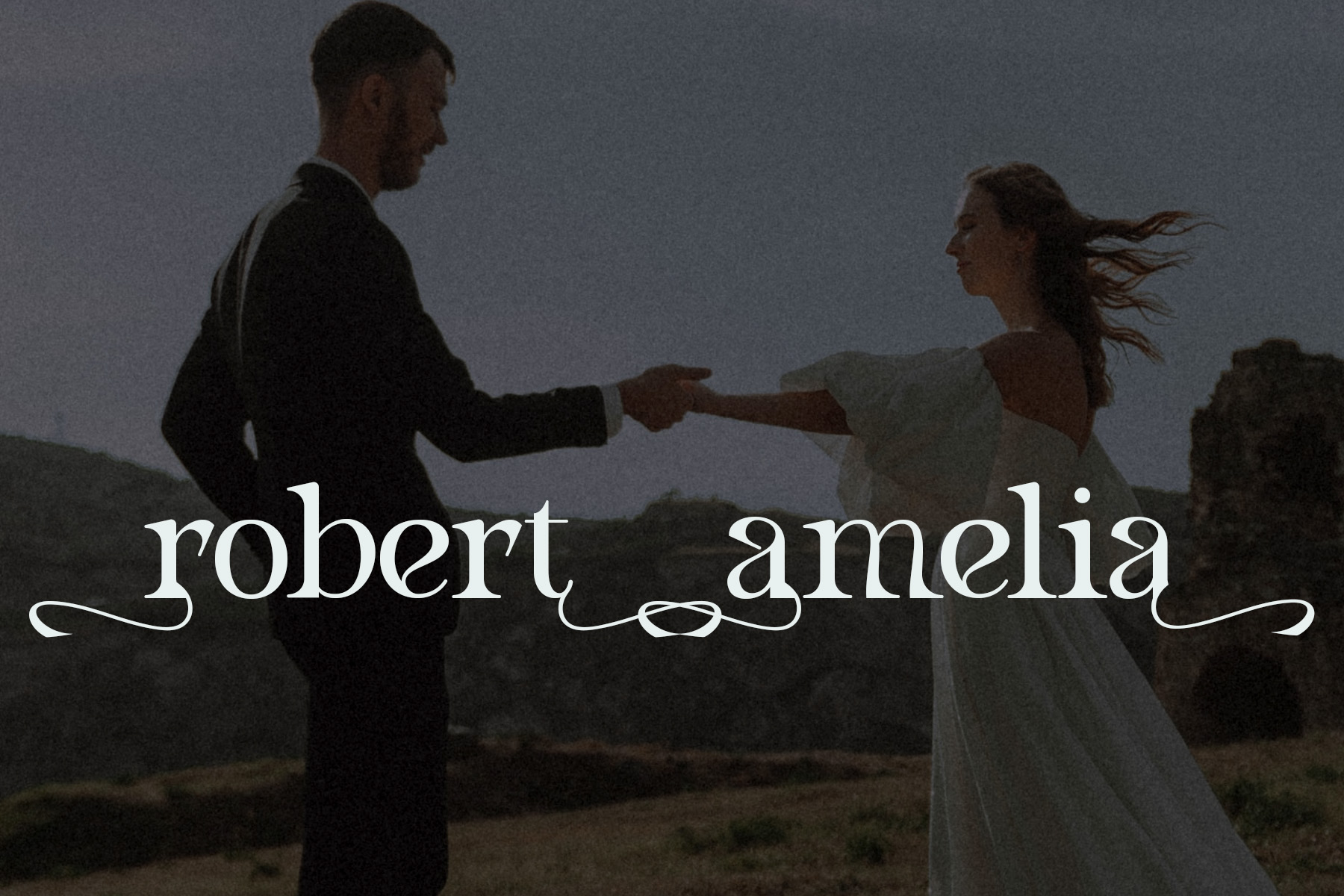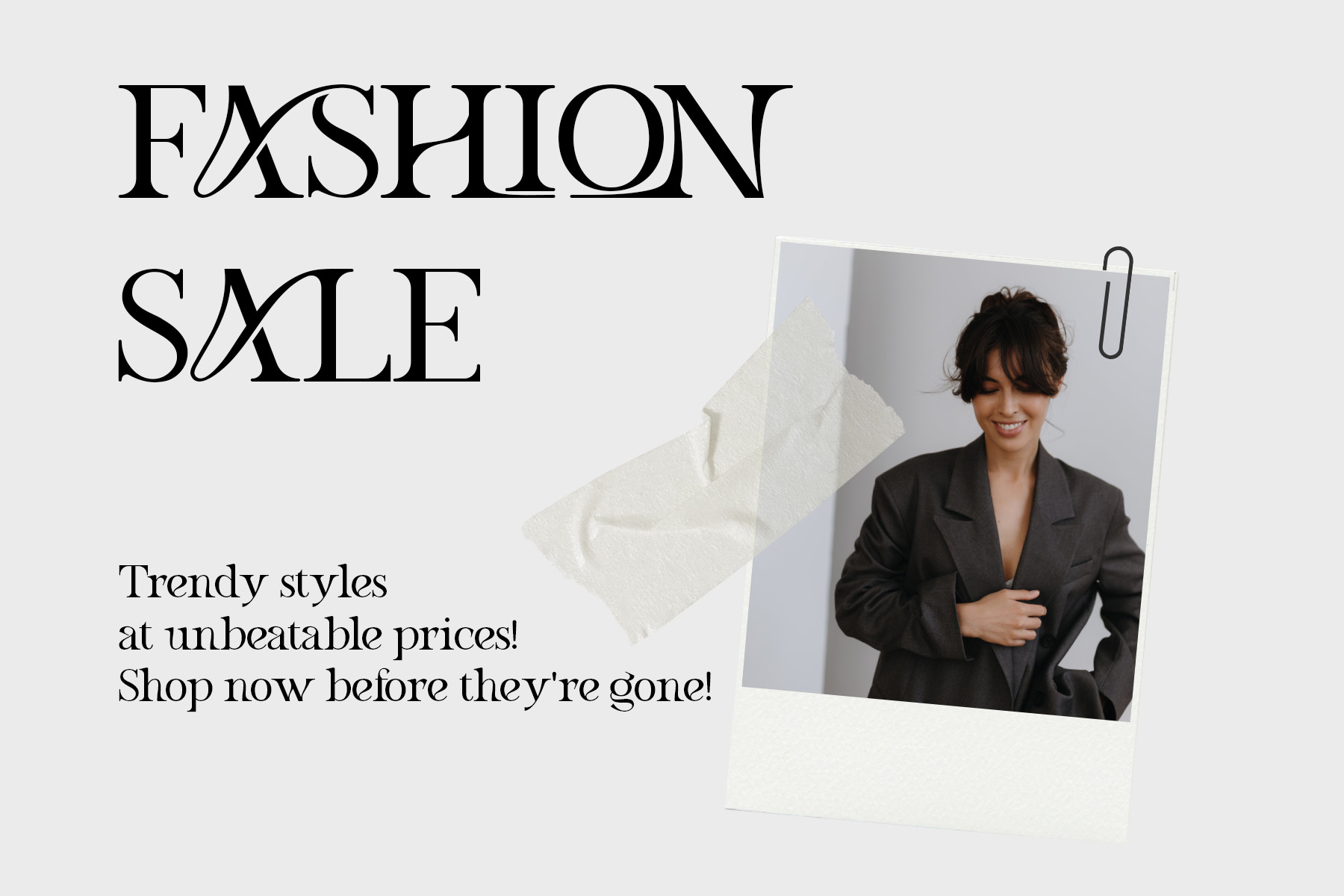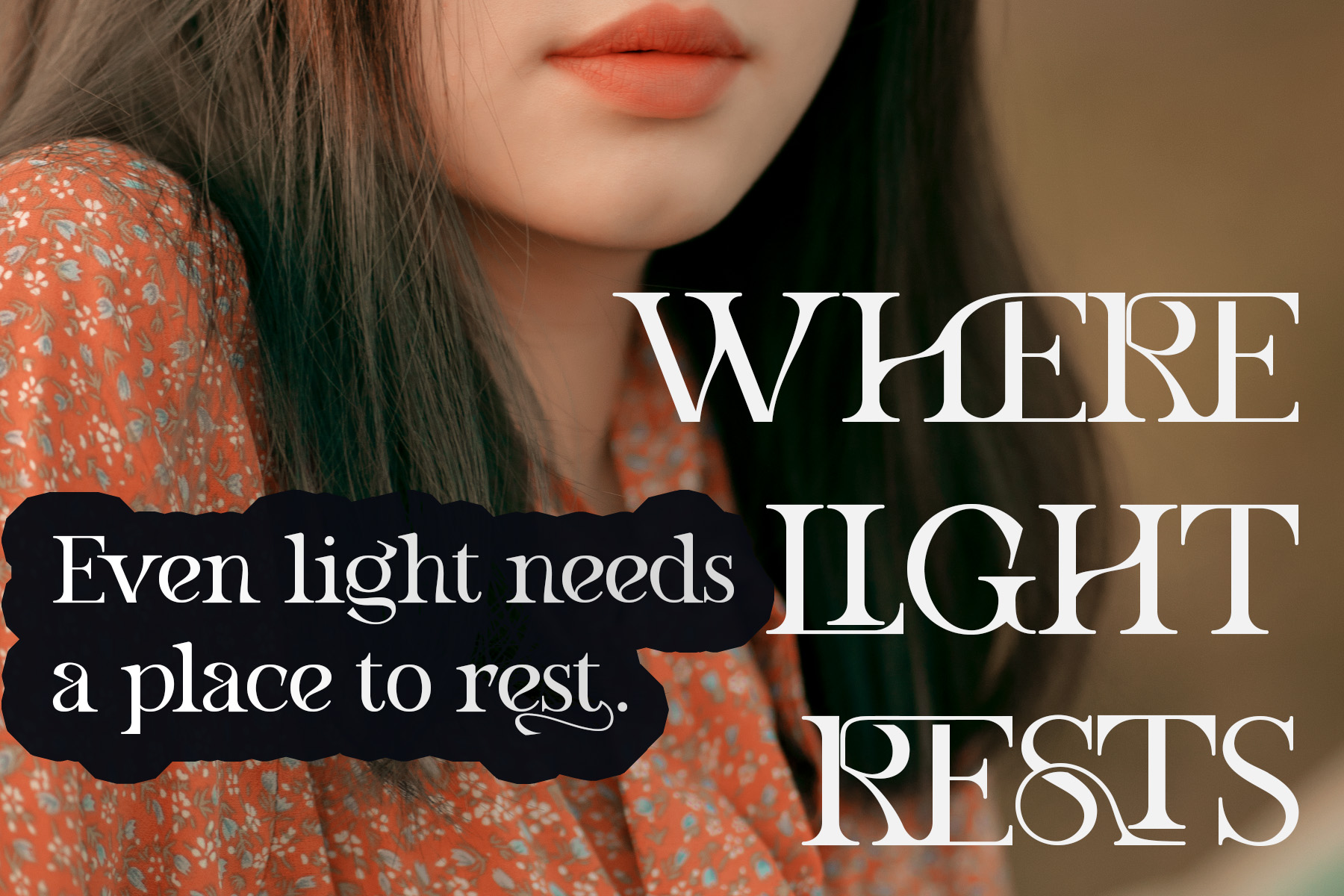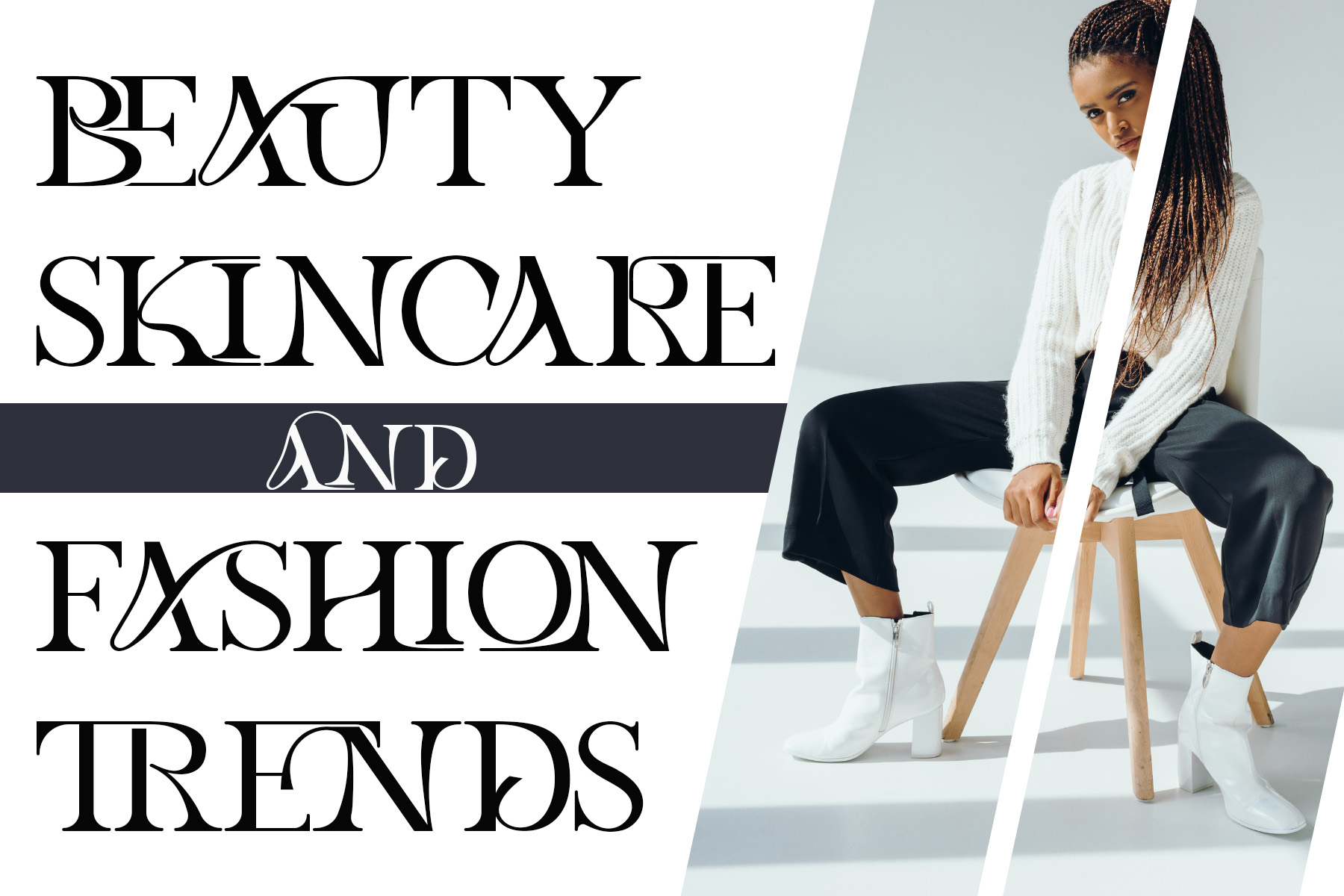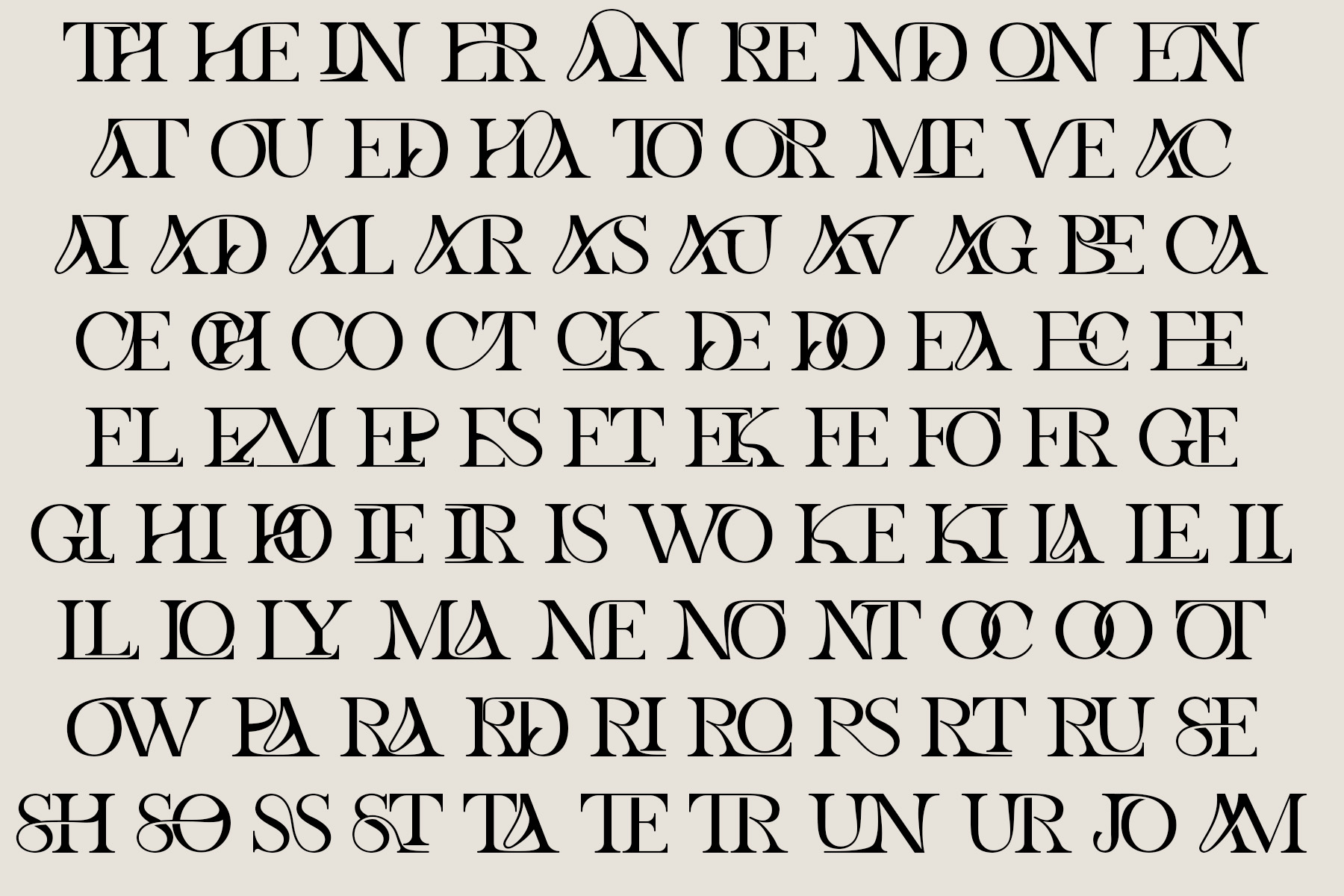
Introducing Kadrith!
Kadrith is a modern serif typeface that embodies both elegance and sophistication. With graceful curves and a timeless structure, it brings a distinctive balance between classic charm and contemporary flair. Perfect for branding, magazine covers, posters, and editorial designs where luxury and refinement are desired.
- Axx → Decorative A (if available)
- aX → Decorative a (if available)
And also:
- AxX → Decorative A2 (if available)
- aXX → Decorative a2 (if available)
- aXXX → Decorative a3 (if available)